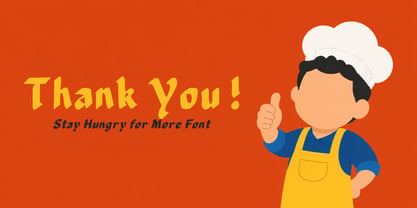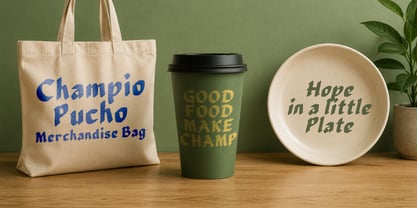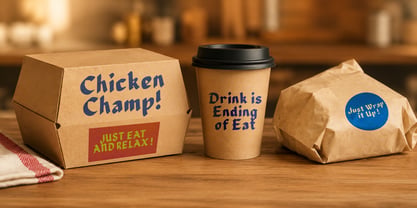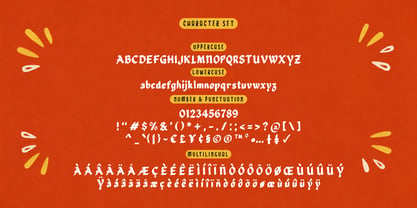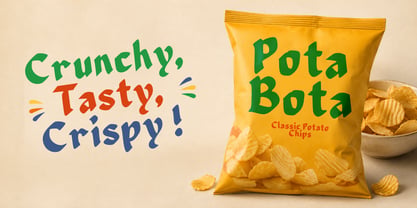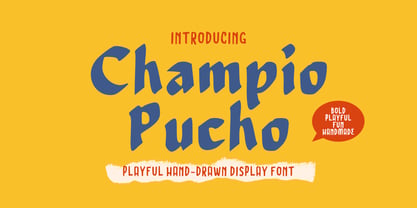
Champio Pucho
The Champio Pucho Font Family was designed by Wahyu Eka Prasetya, Dian Angga Marytama and published by Letterytz CalliType. Champio Pucho contains 2 styles and family package options. More about this family
Champio Pucho is a playful hand-drawn display font crafted entirely by hand from original sketches and carefully refined into clean vector artwork—without the use of AI-generated lettering. Its bold, organic shapes and imperfect handcrafted details create a warm, authentic personality that digital fonts simply can't replicate.
Designed to make headlines pop, Champio Pucho is perfect for children's books, cartoon titles, toy packaging, snack branding, logos, posters, social media graphics, YouTube thumbnails, games, merchandise, and any creative project that needs a fun, friendly, and handmade look. The combination of playful forms and professional vector quality ensures excellent readability while preserving its natural hand-drawn charm.
If you're looking for an original display typeface with genuine handcrafted character, Champio Pucho is the perfect choice.
Features
• Hand-Drawn Letterforms
• 100% Original Handmade Design
• Professionally Clean Vector
• Uppercase & Lowercase
• Numbers & Punctuation
• Multilingual Support
• Regular Style and Oblique Style
Perfect For
Children's books, Cartoon titles, Toy packaging, Food branding, Snack packaging, Logo design, Posters, Stickers, T-shirts, Comics, YouTube thumbnails, Social media graphics, Games, School projects, Branding, Merchandise, and Creative advertising.